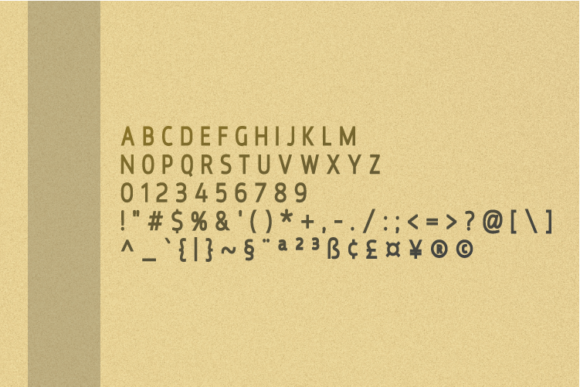
Bracha Font: Elevate Your Design with Elegance and Versatility
In the world of typography, fonts play a crucial role in conveying the tone and personality of a design. For designers and crafters seeking a unique and sophisticated look, Bracha font is an excellent choice. This distinct, elegant sans serif font seamlessly blends traditional influences into a contemporary aesthetic, offering maximum versatility and an exquisite, yet subtle look.
The Bracha Font Story
Bracha font is a carefully crafted typeface that draws inspiration from traditional typography while infusing it with modern sensibilities. The result is a font that exudes elegance, sophistication, and refinement. Whether you’re working on a branding project, website design, or crafting a beautiful piece of art, Bracha font provides the perfect balance of classic and contemporary elements.
Key Features of Bracha Font
- Distinct and Elegant Design: Bracha font boasts a unique and refined design that sets it apart from other sans serif fonts. Its elegant lines, subtle curves, and carefully crafted letterforms create a sophisticated look that’s perfect for designs that require a touch of luxury.
- Traditional Influences: Bracha font draws inspiration from traditional typography, incorporating classic elements that evoke a sense of timelessness and heritage.
- Contemporary Aesthetic: Despite its traditional roots, Bracha font has a distinctly modern feel that’s perfect for contemporary designs. Its clean lines, simple shapes, and uncluttered appearance make it an excellent choice for digital media.
- Maximum Versatility: Bracha font is designed to be versatile, making it suitable for a wide range of applications, from headings and titles to body text and captions.
Use Cases for Bracha Font
Bracha font is an excellent choice for various design projects, including:
- Branding and Logo Design: Create a lasting impression with Bracha font’s elegant and sophisticated design. Use it to craft logos, business cards, and other brand materials that exude refinement and luxury.
- Website Design: Enhance your website’s typography with Bracha font’s clean and modern aesthetic. Its legibility and readability make it perfect for body text, while its elegant design is ideal for headings and titles.
- Graphic Design: Add a touch of sophistication to your graphic designs with Bracha font. Use it to create stunning posters, flyers, brochures, and other marketing materials.
- Crafting and DIY Projects: Bracha font is also perfect for crafters and DIY enthusiasts. Use it to create beautiful handmade cards, invitations, and other paper crafts.
Bracha font is a distinct, elegant sans serif font that offers a unique blend of traditional influences and contemporary aesthetics. Its versatility, sophistication, and refinement make it an excellent choice for designers and crafters seeking to elevate their designs. With Bracha font, you can achieve an exquisite, yet subtle look that’s sure to leave a lasting impression.